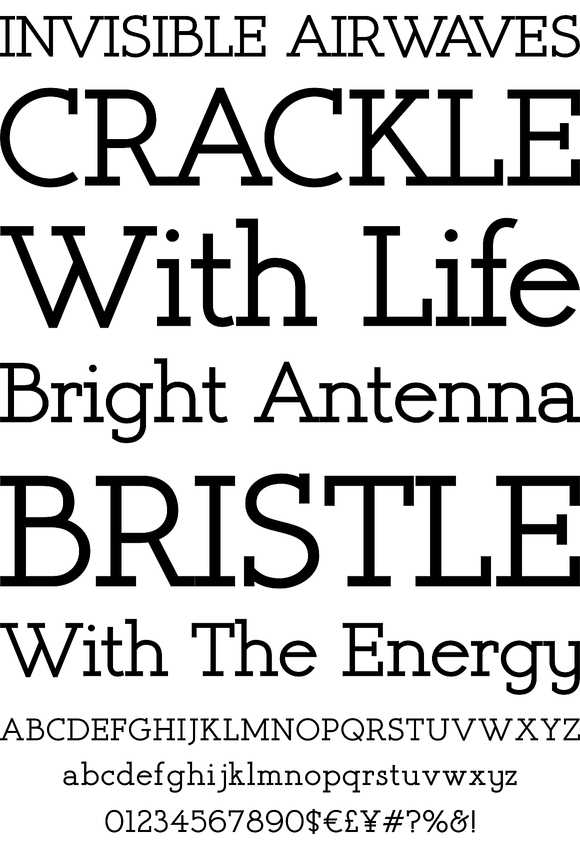
Register Serif
Foundry: Breaking The Norm
Register Serif is a typestyle inspired by the clean generic handwriting specimens from an old Speedball booklet modified for more friendliness and finesse. This typestyle offers a range of weights and also comes with a series of smallcaps versions allowing you to shift from friendly to a little more serious.